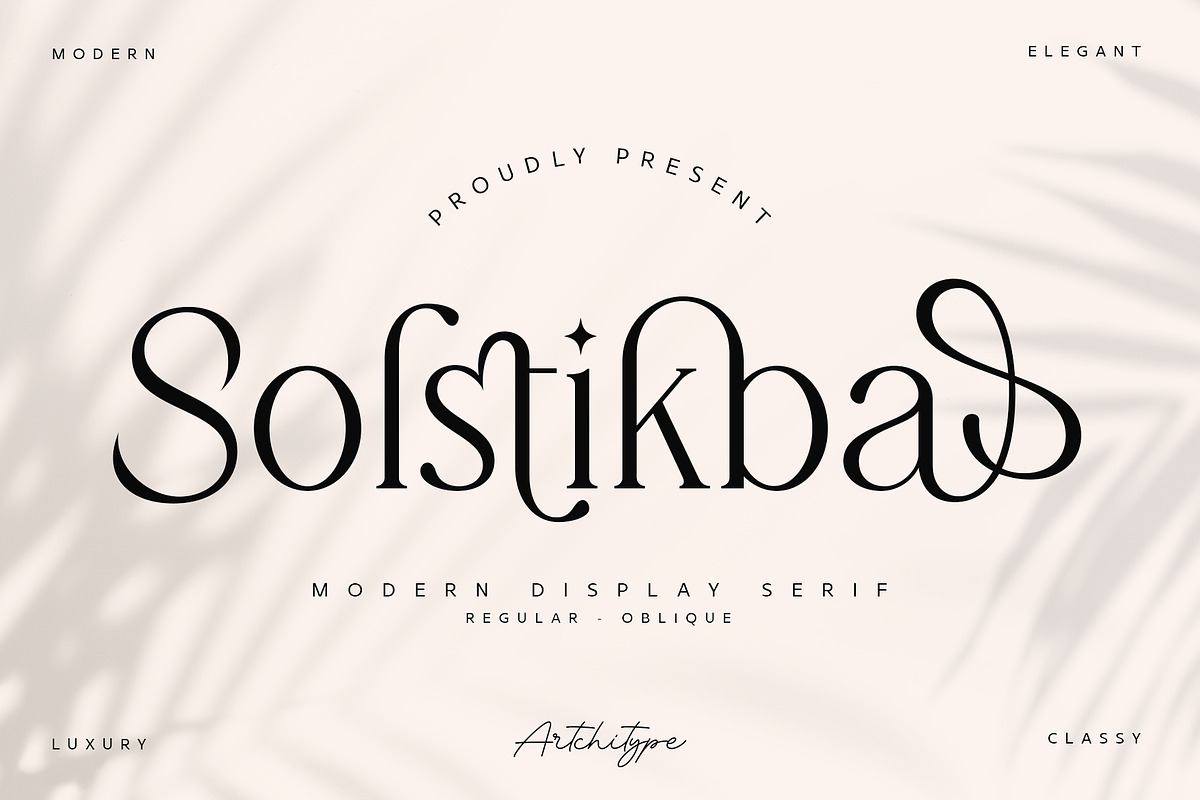
Solstikba - Modern Display Serif Free Download
Solstikba – Modern Display Serif Font Free Download
Solstikba features strong contrast, sharp serifs, and distinctive character shapes that add elegance and personality to any project. Its dramatic appearance is perfect for statements that need to stand out, while still maintaining readability and balance. Whether you're designing a high-end logo or crafting editorial spreads, Solstikba – Modern Display Serif Font Free Download gives you a chance to explore its striking visual impact.